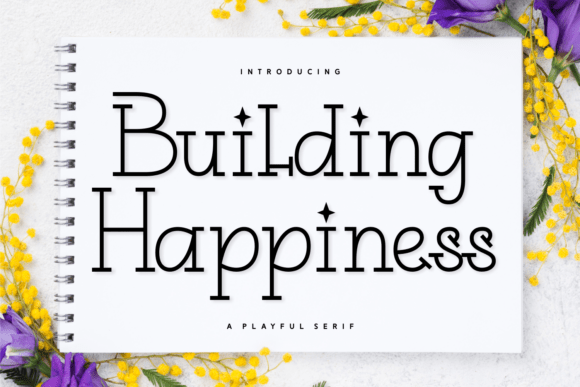
Building Happiness Font: The Ultimate Guide to Adding Quirkiness to Your Designs
In the world of typography, fonts play a crucial role in conveying emotions and setting the tone for a brand or design. With the vast array of typefaces available, it can be challenging to find the perfect font that captures the essence of your message. However, if you’re looking to add a dash of quirkiness and playfulness to your designs, look no further than the Building Happiness font. In this comprehensive article, we’ll introduce you to the Building Happiness font, a collection of typefaces that are sure to bring a smile to your face and elevate your designs to the next level.
Introducing Building Happiness: Your Comprehensive Range of Typefaces
The Building Happiness font is a carefully crafted collection of typefaces designed to bring a sense of joy and whimsy to your designs. With clean lines, accented marks, and a playful flair, these fonts are perfect for adding a touch of personality to your projects. Whether you’re working on a branding campaign, a website, or a marketing material, the Building Happiness font is sure to make your designs stand out from the crowd.
One of the unique features of the Building Happiness font is its emphasis on multilingual contexts, particularly Eastern European needs. The fonts come with a range of accented characters, making them suitable for use in a variety of languages and regions. This makes it an excellent choice for designers who work with international clients or need to create designs that cater to diverse audiences.
The Benefits of Using Building Happiness Font in Your Designs
So, why choose the Building Happiness font for your designs? Here are just a few benefits of using this unique and playful typeface:
- Adds a touch of personality: The Building Happiness font is designed to bring a sense of fun and quirkiness to your designs. With its playful style, you can add a touch of personality to your projects and make them more engaging.
- Multilingual support: As mentioned earlier, the Building Happiness font comes with a range of accented characters, making it suitable for use in multilingual contexts.
- Cleans and readable: Despite its playful style, the Building Happiness font is clean and readable, making it perfect for use in a variety of design applications, from headings to body text.
- Eastern European support: The font’s emphasis on Eastern European needs makes it an excellent choice for designers who work with clients in this region or need to create designs that cater to Eastern European audiences.
Key Features of the Building Happiness Font
The Building Happiness font comes with a range of features that make it an excellent choice for designers. Some of the key features include:
- Clean lines: The font features clean lines and a simple, yet playful style that makes it easy to read and understand.
- Accented marks: The font comes with a range of accented characters, making it suitable for use in multilingual contexts.
- Playful flair: The Building Happiness font has a playful flair that adds a touch of quirkiness to your designs.
- Multilingual support: The font supports a range of languages, including those that use Eastern European characters.
Design Applications for the Building Happiness Font
The Building Happiness font is versatile and can be used in a variety of design applications, including:
- Branding: Use the Building Happiness font to create unique and memorable brand identities that stand out from the crowd.
- Web design: The font’s clean lines and readability make it perfect for use in web design, from headings to body text.
- Marketing materials: Add a touch of personality to your marketing materials, such as brochures, flyers, and posters, with the Building Happiness font.
- Packaging design: Use the font to create eye-catching packaging designs that stand out on store shelves.
Tips for Using the Building Happiness Font
Here are a few tips for using the Building Happiness font in your designs:
- Use it sparingly: While the Building Happiness font is playful and fun, it’s essential to use it sparingly to avoid overwhelming your designs.
- Pair it with other fonts: Experiment with pairing the Building Happiness font with other fonts to create a unique and visually appealing design.
- Consider your audience: While the Building Happiness font is suitable for a range of audiences, it’s essential to consider your target audience and ensure that the font aligns with your brand’s tone and personality.
In conclusion, the Building Happiness font is a unique and playful typeface that can add a touch of quirkiness and personality to your designs. With its clean lines, accented marks, and multilingual support, this font is perfect for designers who want to create engaging and memorable designs. Whether you’re working on a branding campaign, a website, or a marketing material, the Building Happiness font is sure to bring a smile to your face and elevate your designs to the next level.